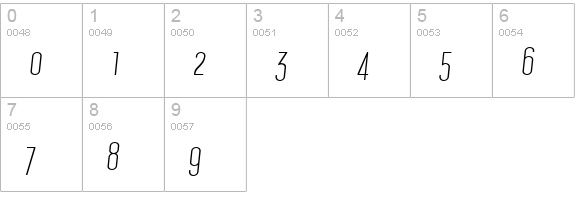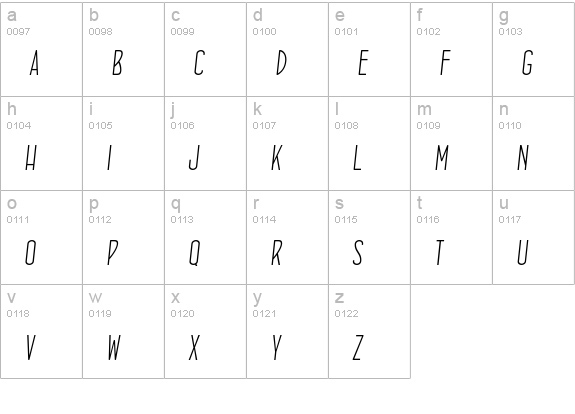
ConcursoItalian BTN Lt Oblique is a distinctive, italic variant in the ConcursoItalian typeface family \xE2\x80\x94 well suited to design and typography projects.
ConcursoItalian BTN Lt Oblique font is a stylish and elegant typeface that exudes sophistication and charm. Its slanted appearance adds a touch of dynamism to any design, making it perfect for both headlines and body text. This font features clean lines and smooth curves, giving it a modern and polished look. What sets ConcursoItalian BTN Lt Oblique font apart is that it is available for free download at FontsMarket.com. This means that you can easily access this high-quality font without any cost, making it a valuable addition to your font library. Whether you're working on a branding project, a poster design, or any other creative endeavor, ConcursoItalian BTN Lt Oblique font is sure to elevate your work with its timeless appeal and versatility. Download it today and see how it enhances your designs!